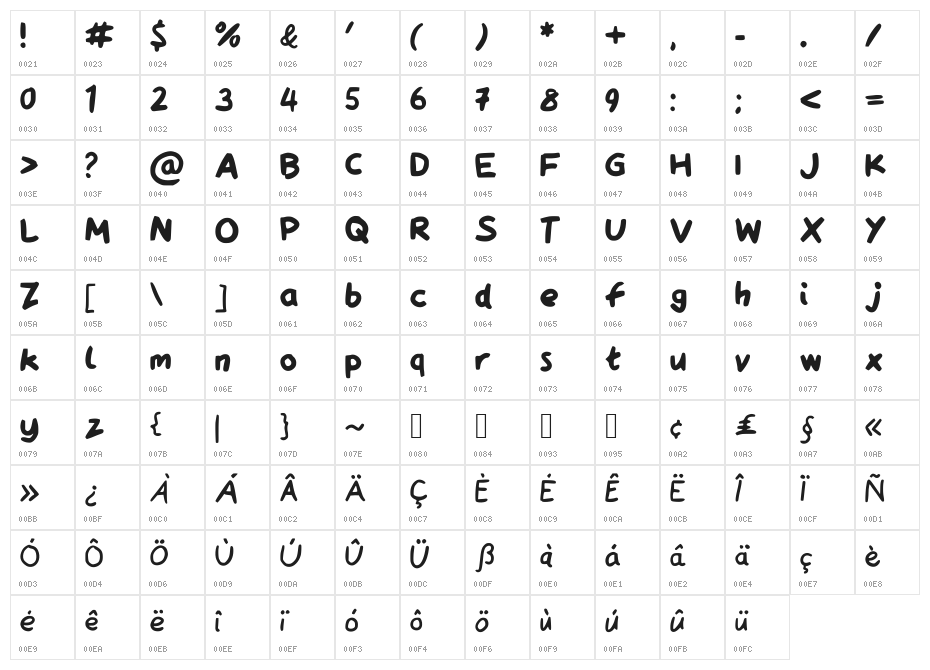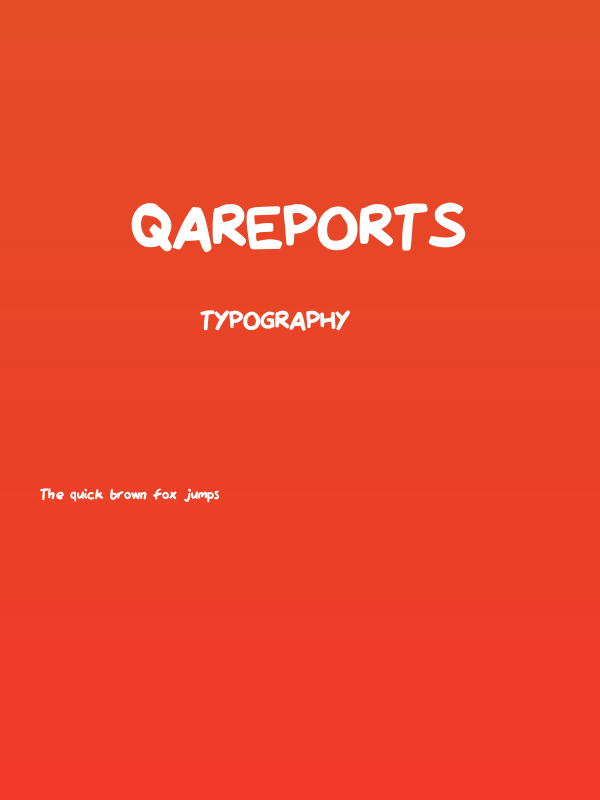
QAReports Font
QAReports Description
This font features a playful and bold handwritten style, characterized by its thick strokes and rounded edges. The letters have a casual and informal appearance, making them suitable for creative and fun projects. The uppercase and lowercase letters maintain a consistent style, with a slight slant that adds to the dynamic feel. Numbers and special characters are equally bold and maintain the same playful aesthetic, ensuring uniformity across all characters. The overall look is approachable and friendly, ideal for designs that aim to convey warmth and creativity.
| Proposed Projects | Ideal for children's books, playful branding, greeting cards, and creative posters. |